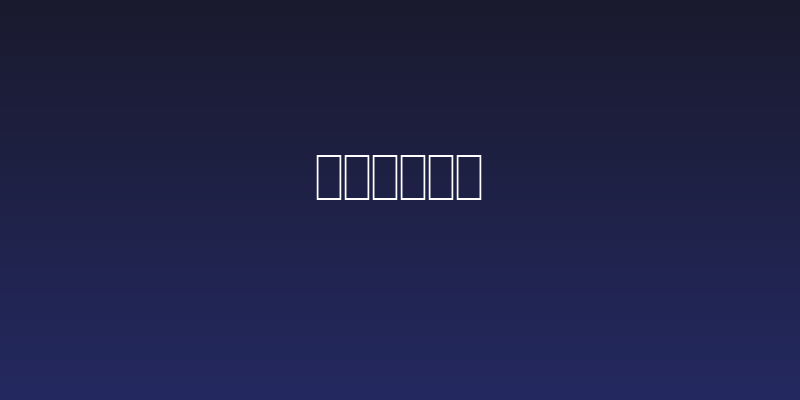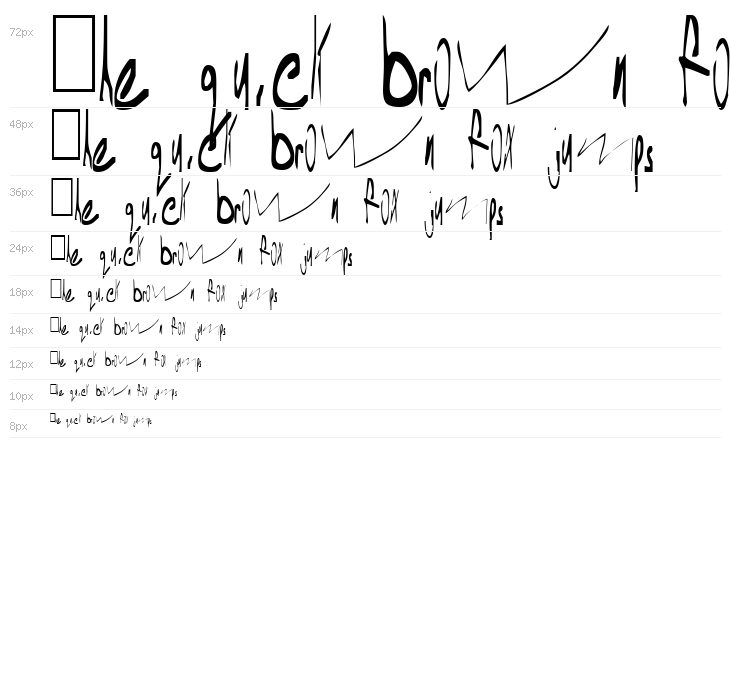
Poopoo Font
Poopoo Description
This font exhibits a highly abstract and artistic style, characterized by its irregular and distorted letterforms. The strokes are uneven, with varying thicknesses that create a dynamic and chaotic appearance. The characters are loosely connected, giving an impression of spontaneity and fluidity. This font lacks traditional structure, making it more of an artistic expression rather than a functional typeface. It is not suitable for standard text applications due to its unconventional and hard-to-read nature.
| Overall Style | Abstract, Artistic |
| Use Case | Artistic displays, experimental designs |
| Proposed Projects | Artistic projects, abstract designs, experimental typography, creative posters. |